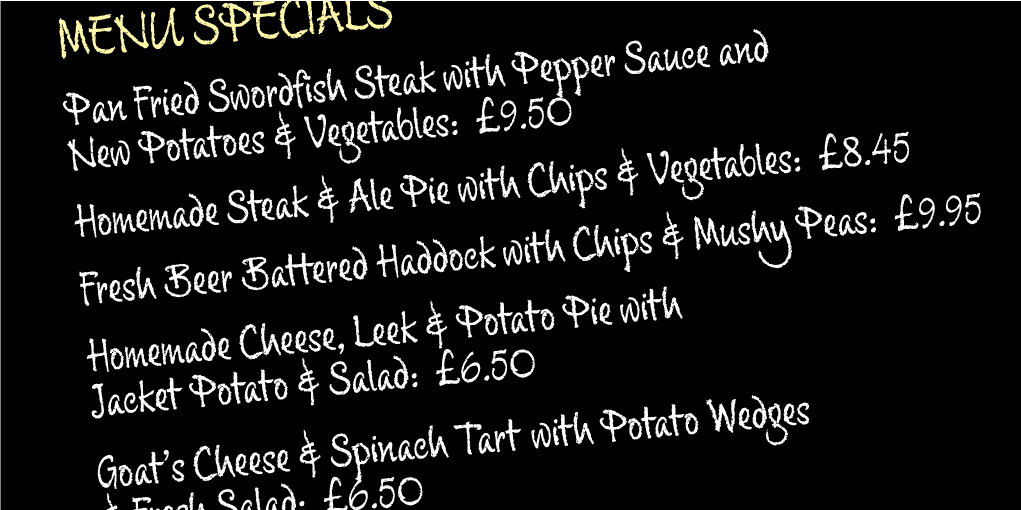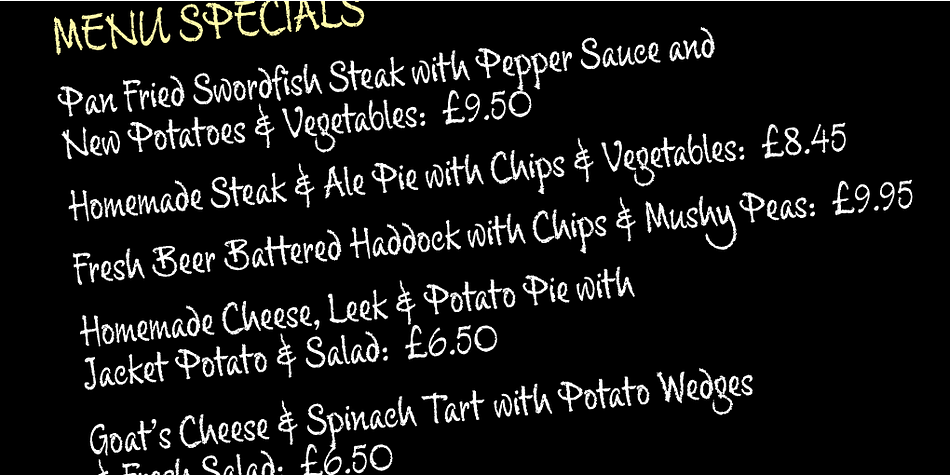
Chalky is a hand drawn font published by Alan Meeks Collection.
Originally designed as a supermarket point-of-sale font, Chalky is a chalk on blackboard style of lettering. More condensed than most fonts of this style, chalky can be used in relatively long settings without losing ledgibility.
Chalky